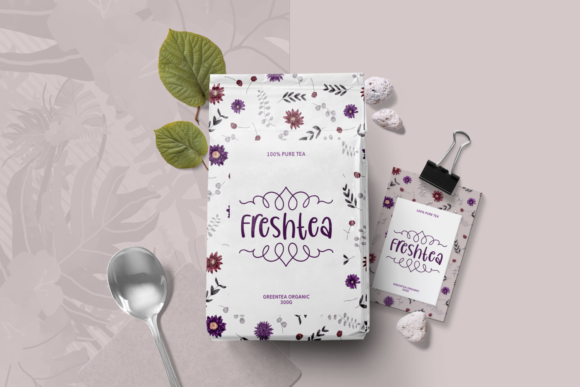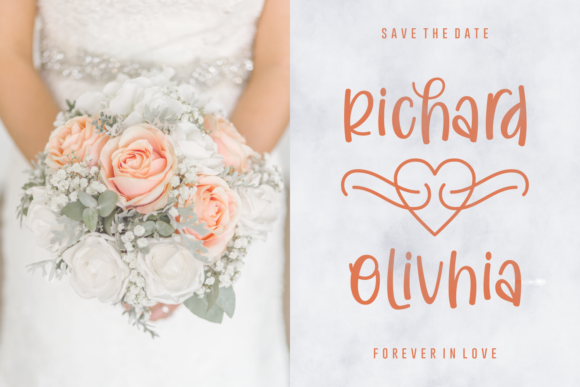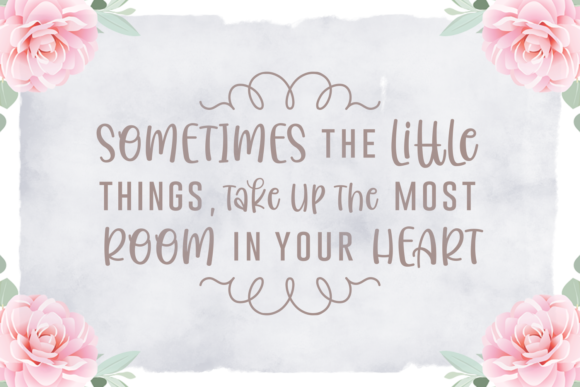
Introduction to Royela Font Font
Fonts play a crucial role in design, and the Royela Font font is a typeface that brings both character and versatility to any project. Whether you’re working on a branding project, a website, or a print design, the Royela Font font offers a unique style that can elevate your work.
The Royela is a whimsical script font.
It has a fun flow and a perfect readability Included are some amazing swashes which will add an elegant touch to your designs.
Key Features of Royela Font Font
Why Choose Royela Font Font?
The Royela Font font is more than just a typeface – it’s a design tool that helps you communicate your message with style and clarity. Its unique character set and versatile design make it suitable for a wide range of applications, from elegant invitations to bold headlines.
With its carefully crafted letterforms and balanced proportions, the Royela Font font ensures readability and visual appeal across all mediums.
What makes Royela Font font special?
The Royela Font font stands out with its unique design, exceptional readability, and versatility across various design applications.